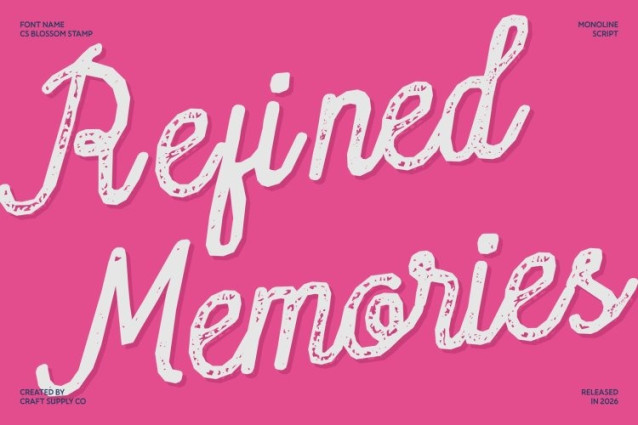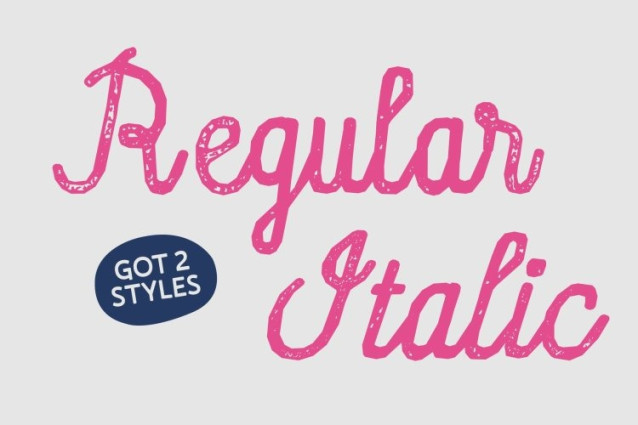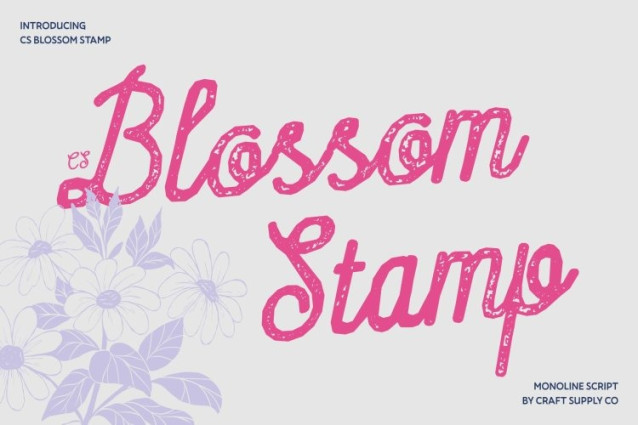
CS Blossom Stamp Font This brings a gentle stamped texture to the flowing elegance of the original script design. The smooth, handwritten strokes remain soft and graceful, now enriched with subtle ink variations and lightly distressed edges that evoke a handcrafted, artisanal feel. This treatment adds warmth and authenticity, making every word feel thoughtfully pressed by hand.
Feminine Beauty with Vintage Character
The delicate curves and natural rhythm of this font gain new depth through the stamp effect. Slight imperfections enhance its feminine charm, creating a look that feels romantic, intimate, and emotionally expressive. The result is a script font that feels both refined and human elegant without being overly polished.
Perfect for Romantic and Lifestyle Design
This is ideal for wedding invitations, beauty branding, lifestyle packaging, greeting cards, and aesthetic social media content. The stamped texture enhances its nostalgic appeal, making designs feel heartfelt, cozy, and visually inviting while maintaining a modern sense of clarity.
Expressive, Warm, and Timeless
By combining clean handwritten elegance with a soft vintage stamp finish, offers a beautiful balance between personal expression and classic charm. It’s the perfect choice for designers seeking a script font that feels emotional, graceful, and genuinely handcrafted letting every design bloom with sincerity and style.